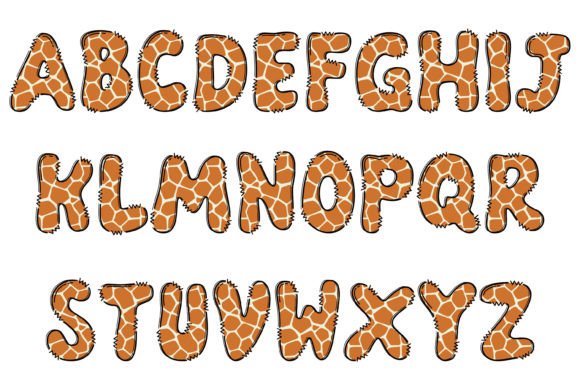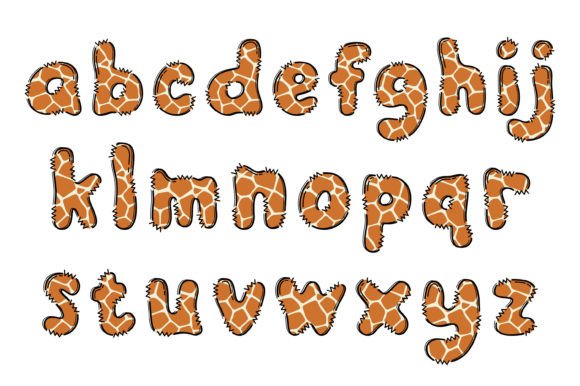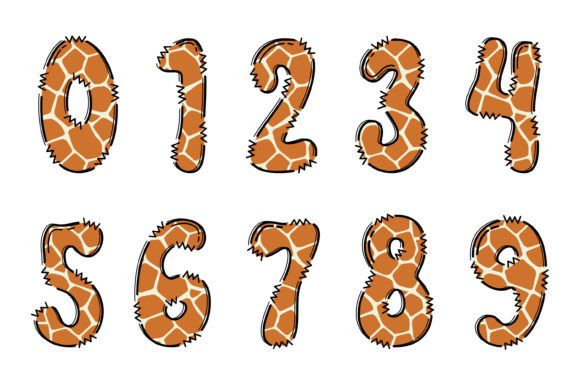
The Joy of Creativity: Unleashing Your Inner Artist
Remember that moment when you were a kid, and your imagination knew no bounds? You were the master of your own universe, where colors blended, shapes morphed, and words danced on the page. That spark of creativity is still within you, waiting to be unleashed. As a designer, you’re constantly seeking ways to bring that magic to life in your work.
Enter the delightful Giraffe Font, a whimsical and playful typeface designed to capture the essence of childhood wonder. This charming font is perfect for adding a touch of personality to your designs, from children’s books and posters to invitations and greeting cards. With its versatility and ease of use, Giraffe Font is a valuable addition to any designer’s toolkit.
Giraffe Font Key Features
- Unique Characteristics: The Giraffe font features a unique, hand-drawn design with bold lines and playful flourishes, making it an ideal choice for creative and whimsical applications.
Giraffe Font Review
Overall, I think the Giraffe Font is an interesting and unique addition to the world of typography. Here are a few things that I think work well:
- ✨ Unconventional design: The Giraffe Font’s irregular shape and varying line heights give it a quirky charm that can add character to designs.
- ✨ Customizable: The font comes in a range of weights and styles, making it easy to adapt to different design needs.
- ✨ Versatile: Whether you’re designing for a logo, title, or body text, the Giraffe Font can be used in a variety of contexts.
- ⚠️ Limited legibility: The font’s unique design can make it difficult to read, especially at small sizes or in dense text.
- ⚠️ Not suitable for body text: Due to its irregular shape, the Giraffe Font is best used for headings or titles, rather than body text.
In conclusion, the Giraffe Font is a bold and eye-catching addition to any design. While it may not be suitable for every project, it can be a great choice for designs that need a little extra personality. With some careful consideration and use, the Giraffe Font can add a unique touch to your designs.
Tips for Getting the Most Out of the Giraffe Font
Use the Giraffe font for creative and playful designs. It works well for children’s books, party invitations, and social media graphics.
To make the most of the font, pair it with bold and bright colors and use it in combination with other playful fonts.
The Giraffe font is perfect for:
- Children’s books and educational materials.
- Party invitations and event graphics.
- Social media graphics and advertising.
Q: What is the recommended font size and line height for the Giraffe Font?
For optimal readability, we recommend using the Giraffe Font at a size range of 12-24 points. For body text, a line height of 1.2-1.5 times the font size is recommended. This will help maintain a clear and legible reading experience.